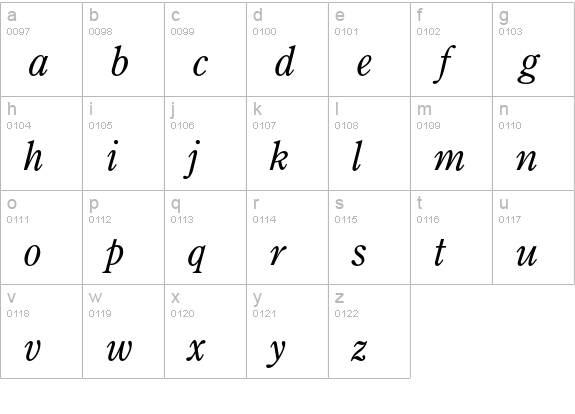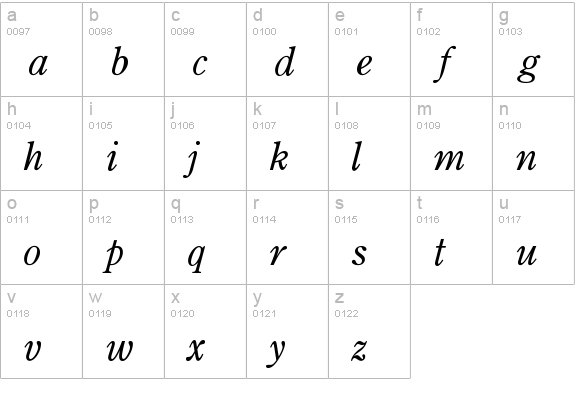
Century Oldstyle Italic Font Details
Century Oldstyle Italic is a distinctive, italic variant in the Century typeface family \xE2\x80\x94 well suited to design and typography projects.
Century Oldstyle Italic is a classic and elegant font that exudes sophistication and timelessness. With its graceful slanted style, this font is perfect for adding a touch of sophistication to any design project. The intricate details of the italicized characters give Century Oldstyle Italic a unique and refined look that sets it apart from other fonts. What makes Century Oldstyle Italic even more appealing is the fact that it is available for free download at FontsMarket.com. This means that you can easily access this stunning font and use it in your projects without any cost. Whether you are working on a professional presentation, a creative advertisement, or a personal project, Century Oldstyle Italic is a versatile font that will elevate the overall look and feel of your work. Download it today and add a touch of timeless elegance to your designs.